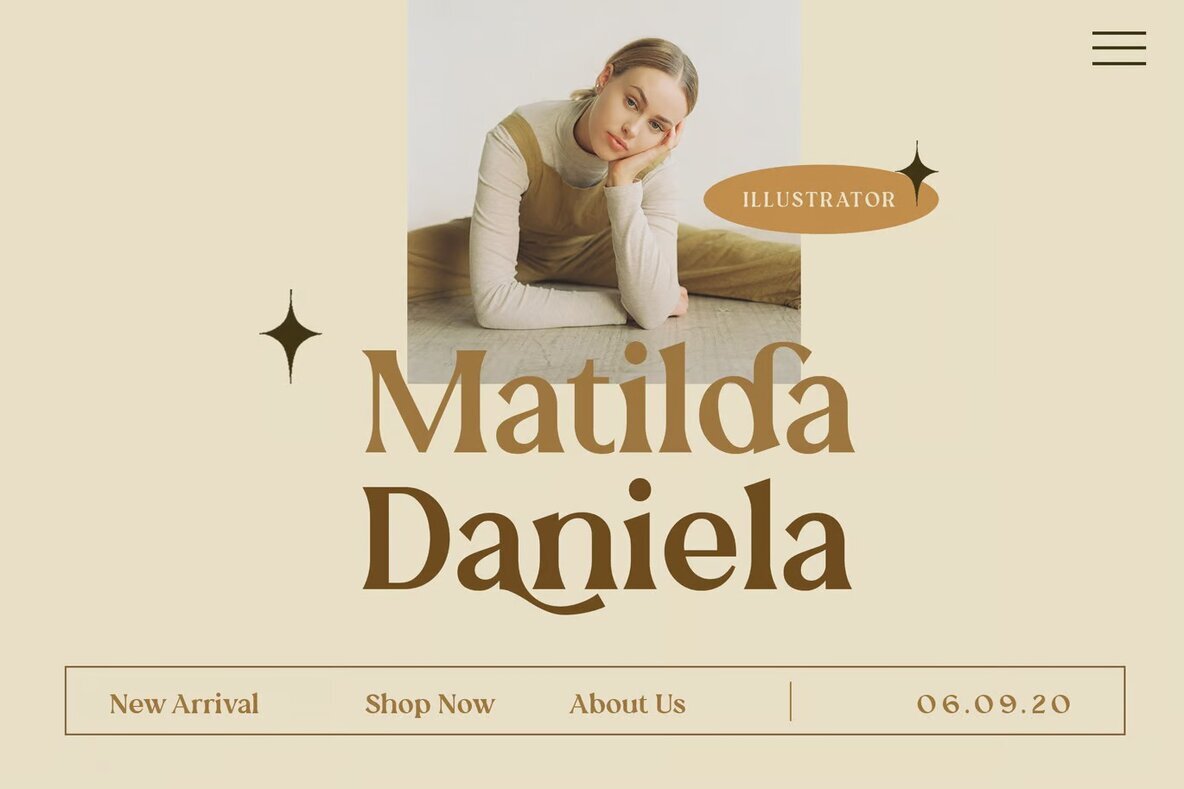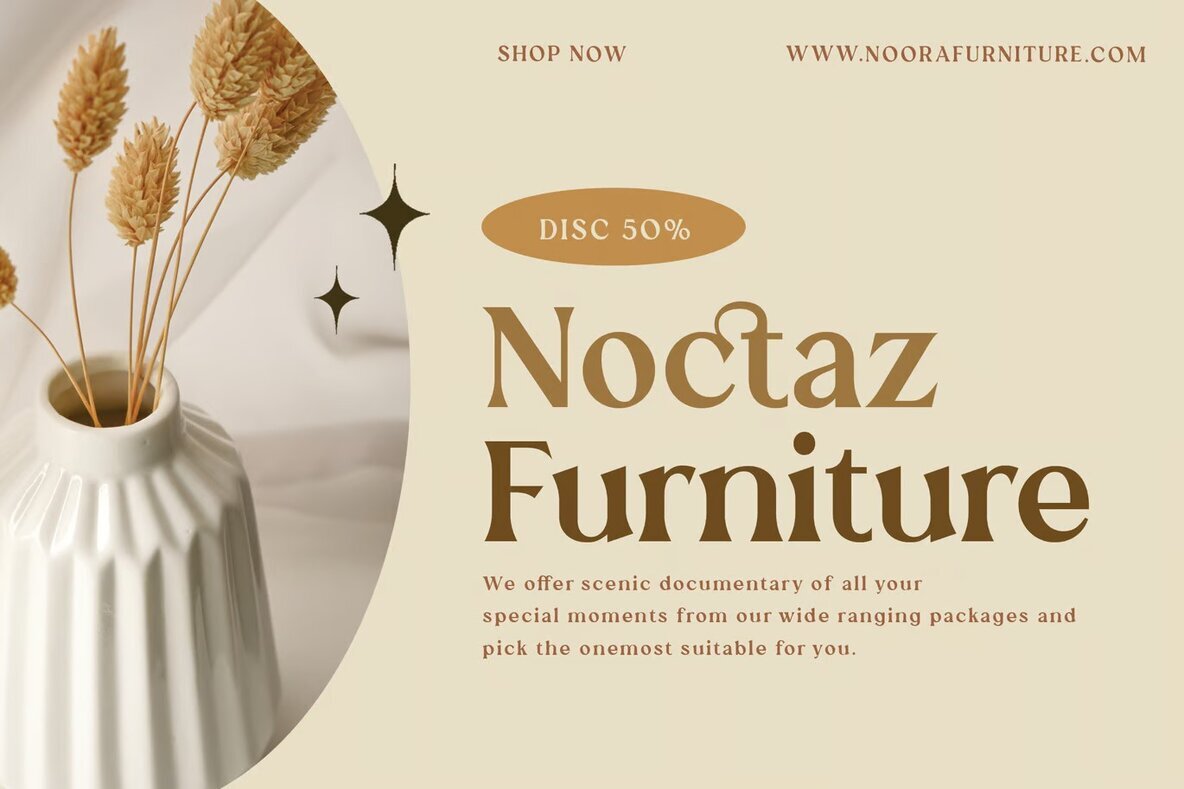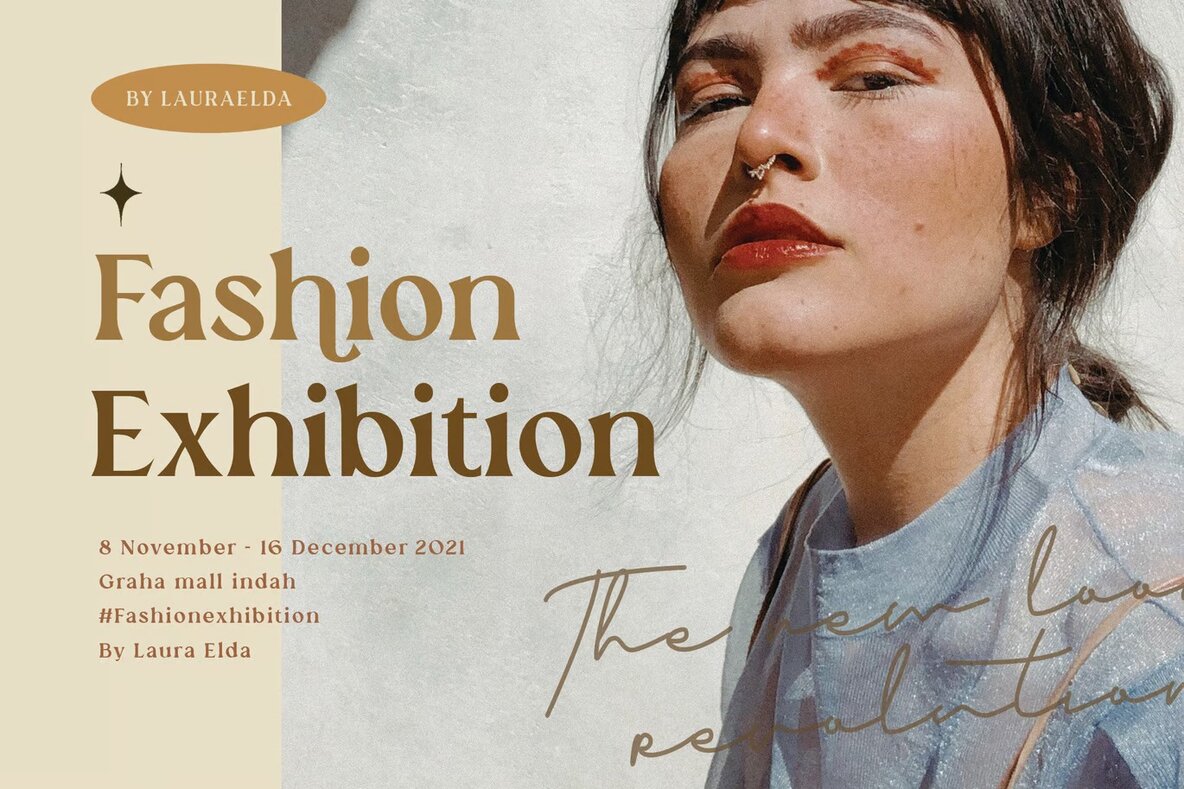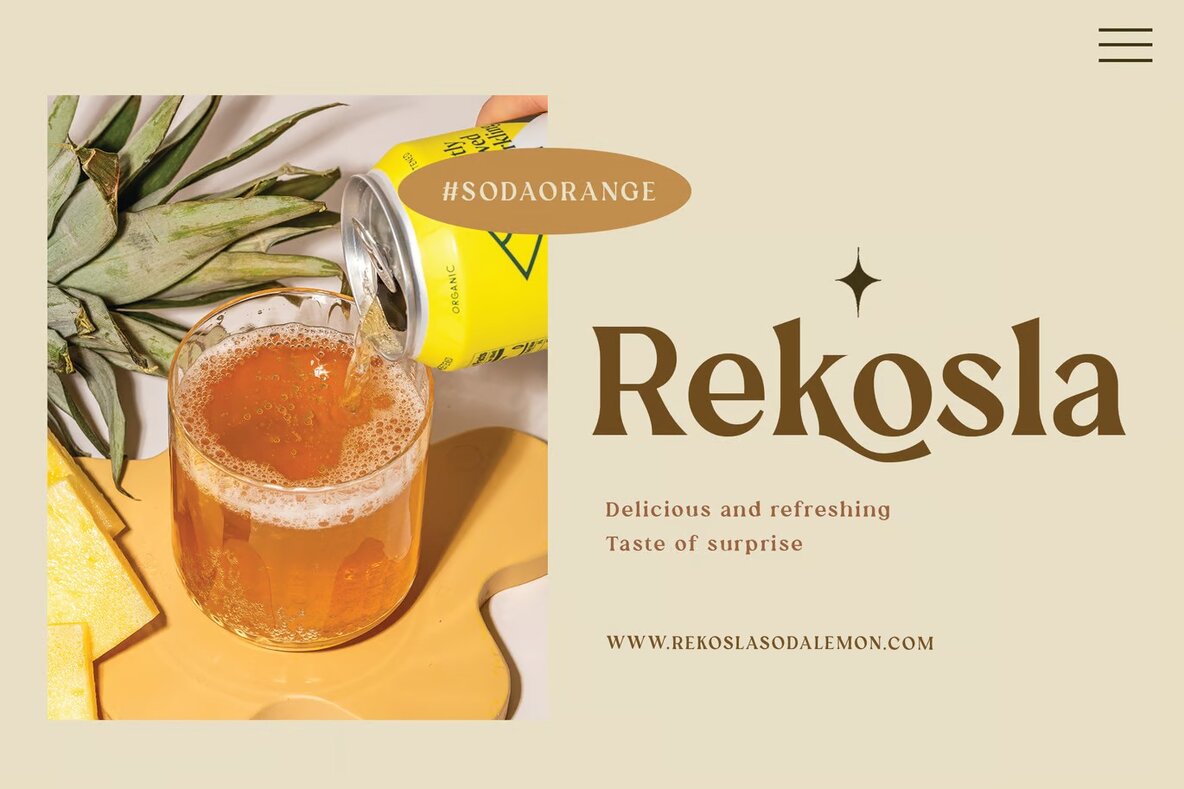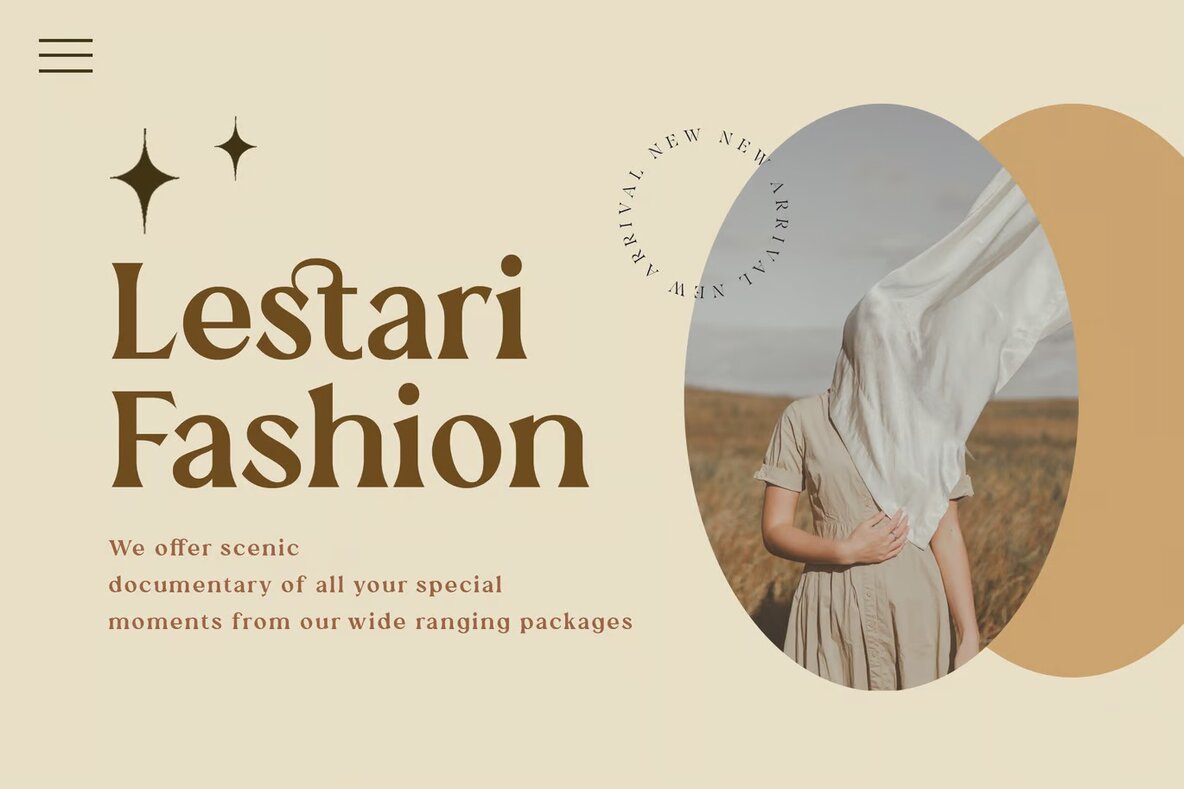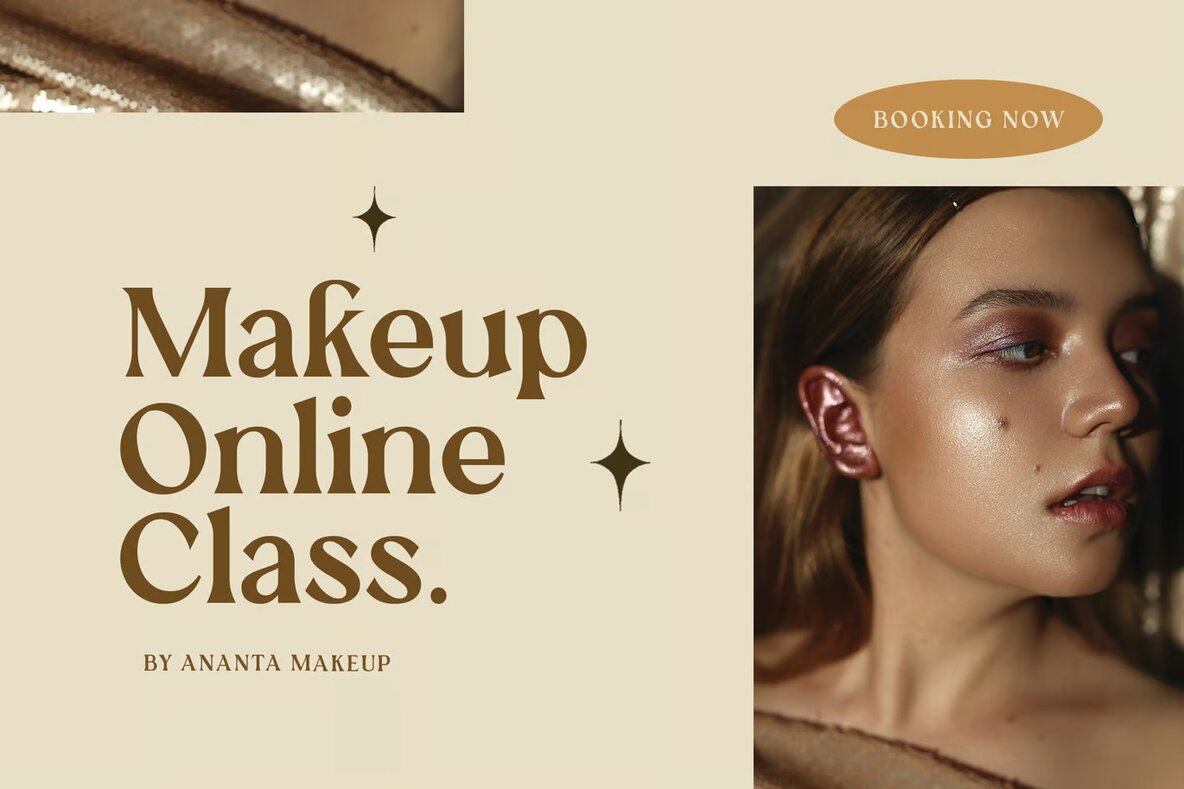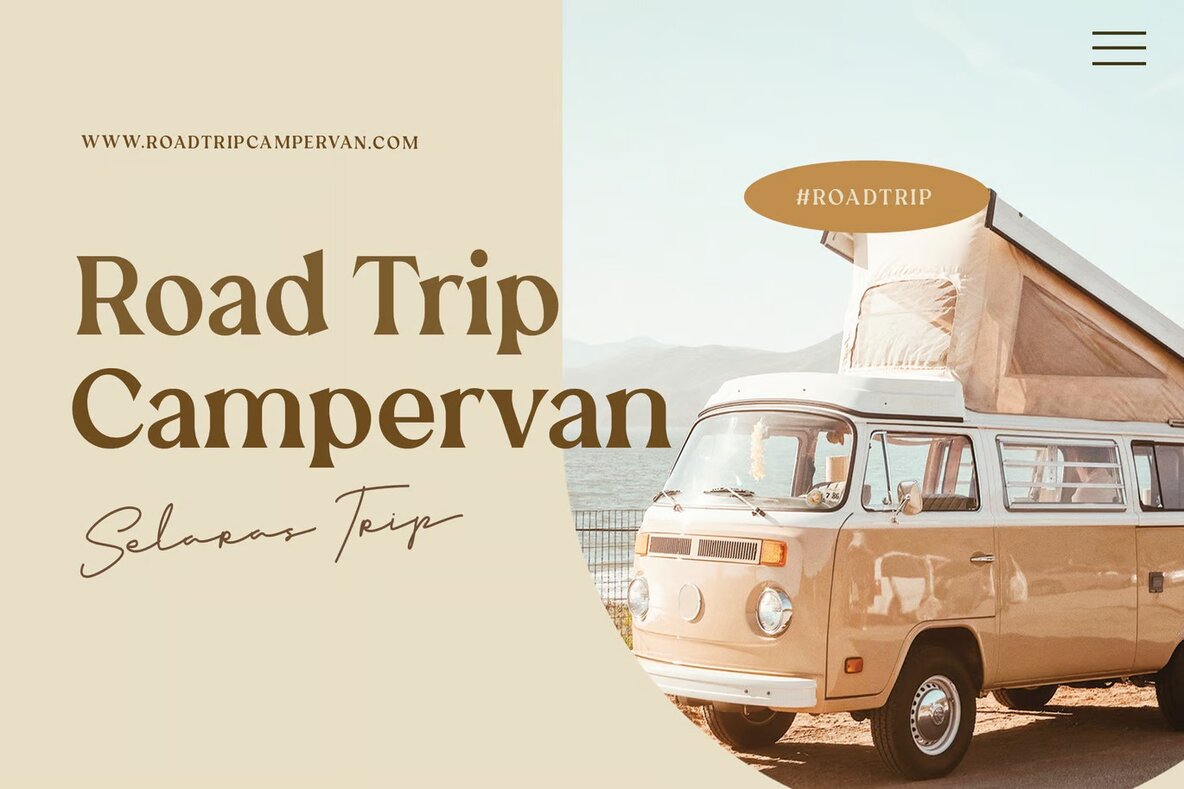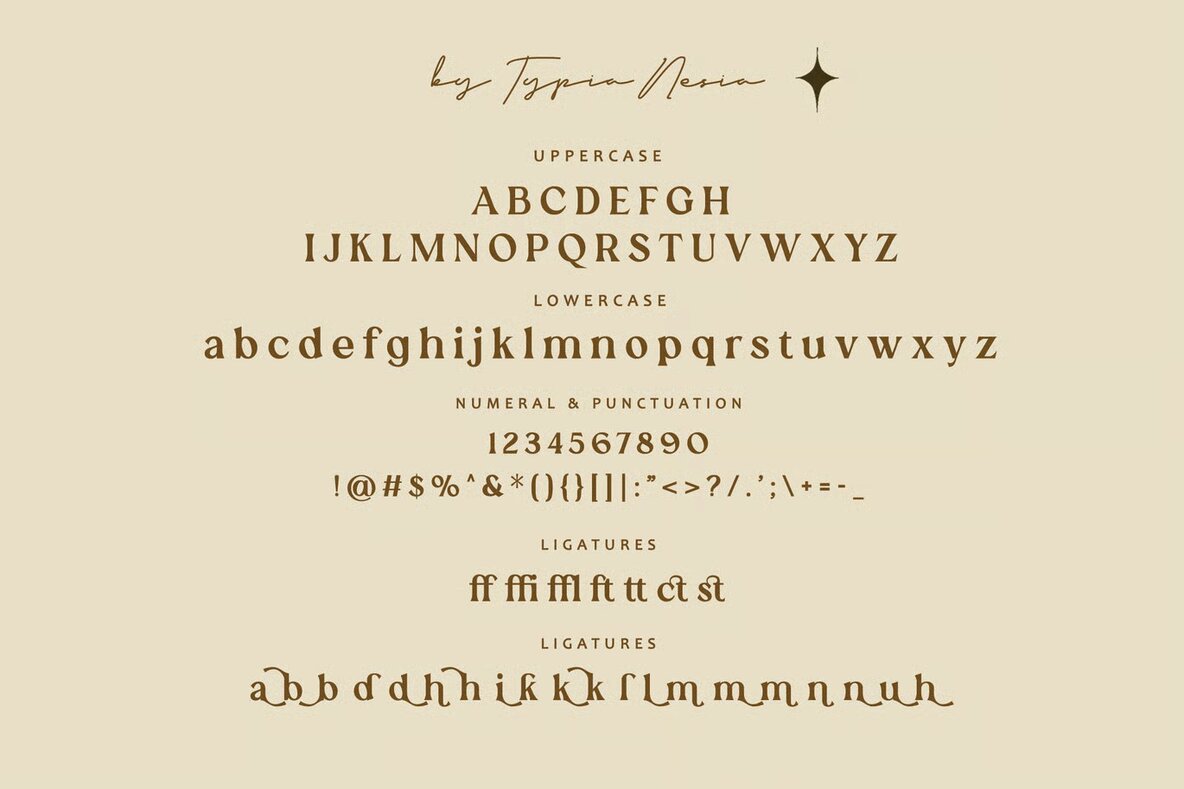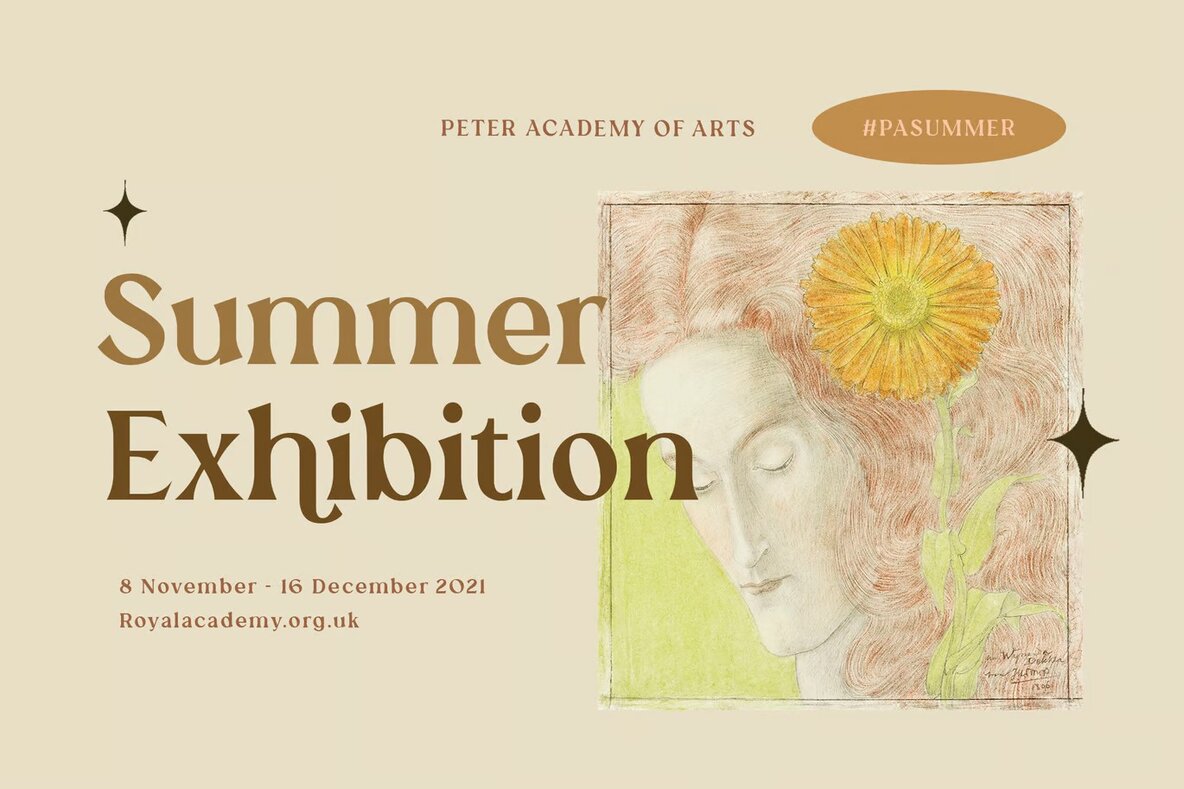
Nekolina Font
Nekolina Regular
Nekolina is a captivating vintage retro serif font that offers a nostalgic feel ideal for your creative typography projects. Featuring a selection of alternates and ligatures, it allows you to craft unique and personalized designs with ease. Its stylistic charm and versatility make it suitable for a diverse range of applications. From logo branding and jungle-themed projects to custom motorcycle concepts and vintage industrial designs, the possibilities are expansive.
This font is also a perfect choice for summer holiday branding, editorial and stationery design, and modern advertising. It seamlessly fits within art quotes, home decor, special events, and classic automotive themes. Nekolina's classic hand-lettering style makes it an excellent addition to book titles, card invitations, and any project requiring a touch of vintage elegance.